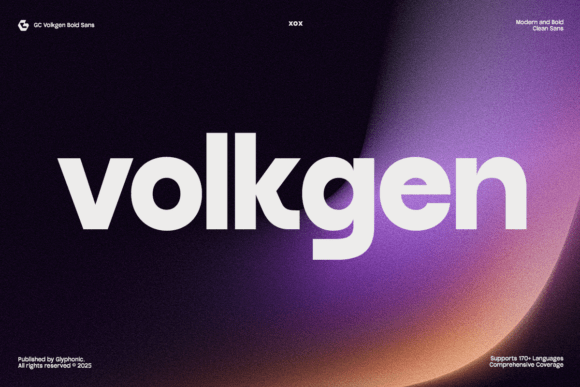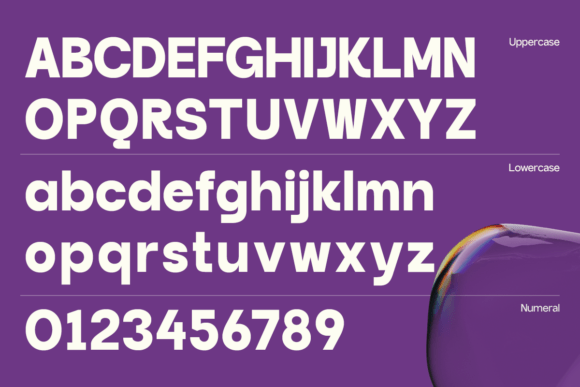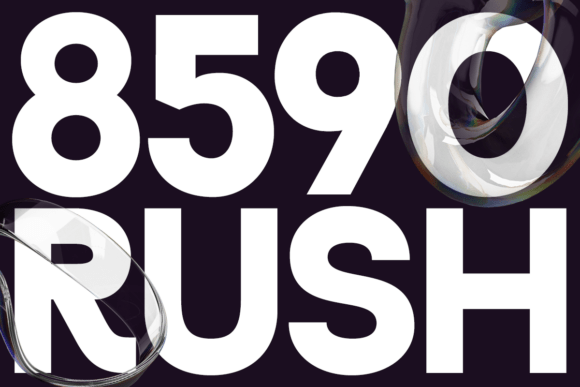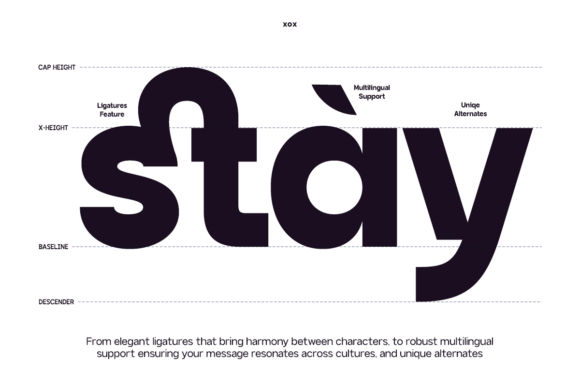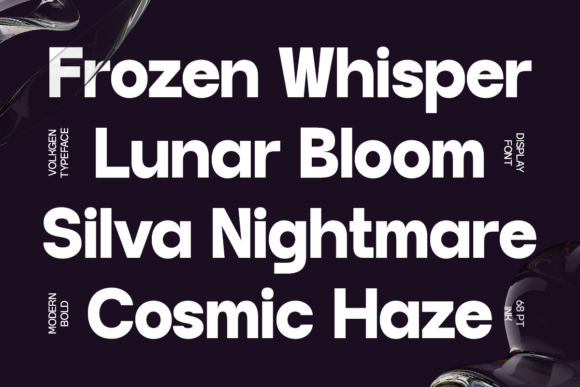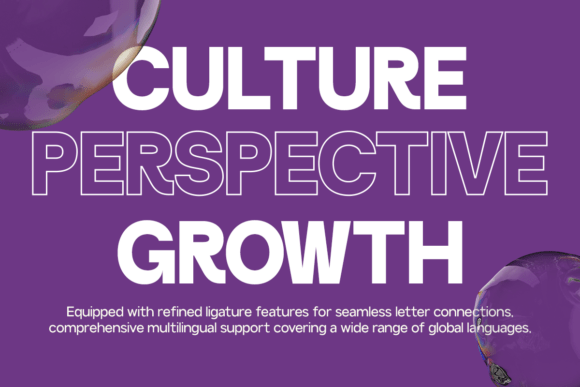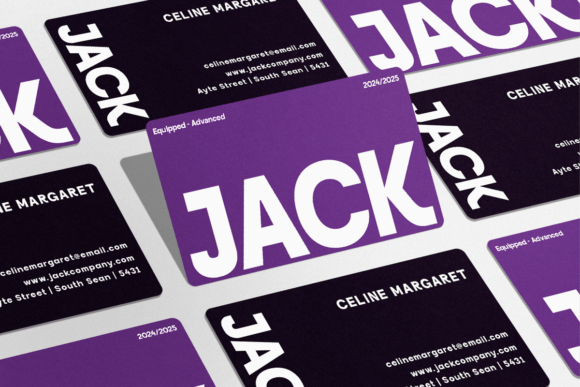
The Power of Typography: Elevating Your Designs with GC Volkgen Font
Imagine you’re working on a high-profile branding project, and you need a font that exudes confidence and modernity. The cursor hovers over your keyboard as you search for the perfect match, and suddenly, it appears: GC Volkgen Font. This sleek sans serif typeface is the ultimate game-changer for designers seeking to create striking visual identities.
GC Volkgen Font is built on clean geometric foundations and reinforced by strong strokes, making it perfect for branding, editorial design, and technology-driven projects. Its balanced proportions and refined details ensure it adapts effortlessly to any design context, while its distinctive voice sets it apart from the crowd.
As a designer, you’ll appreciate the value of GC Volkgen Font’s PUA-encoded features, which allow for effortless access to all glyphs, swashes, and alternate characters. With this font, you’ll be empowered to create designs that are both strong and sophisticated, making it a timeless addition to your design arsenal.
Gc Volkgen Font Key Features
- Font Family: Gc Volkgen is a sans-serif font family.
- Font Size: Supports font sizes ranging from 6pt to 120pt, making it suitable for various applications.
- Resolution: Designed to work at resolutions up to 300 DPI, ensuring clear readability at high print resolutions.
- Unique Characteristics: Gc Volkgen features a geometric and modern design, with clean lines and a highly legible character set.
Gc Volkgen Font Review
I recently had the chance to work with the Gc Volkgen font, and I’m excited to share my honest review with you. Here’s what I thought:
- Unique aesthetic: Gc Volkgen has a distinctive, modern look that sets it apart from more traditional fonts.
- High legibility: The font is well-designed for digital use, with clear letterforms that are easy to read at various sizes.
- Comprehensive character set: The font includes a wide range of characters, including punctuation, symbols, and language support.
- Not ideal for print: While Gc Volkgen is great for digital use, it may not be the best choice for print materials, where the font’s digital-specific design may not hold up as well.
- Some users may find it too bold: The font’s strong, modern aesthetic may not appeal to everyone, and some users may find it too bold or overpowering.
Gc Volkgen is a solid choice for digital design projects where a modern, bold aesthetic is desired. While it may have some limitations, the font’s unique look and high legibility make it a great option for a wide range of applications. Just be sure to consider the context in which it will be used, and whether it will appeal to your target audience.
Tips for Getting the Most Out of Gc Volkgen Font
Some tips for getting the most out of the Gc Volkgen Font include:
1. Experiment with different font sizes and colors to create visual hierarchy and emphasis.
2. Pair the Gc Volkgen Font with other fonts to create a unique and interesting typography combination.
3. Use the Gc Volkgen Font in conjunction with images and graphics to create a visually appealing design.
Common Use Cases for Gc Volkgen Font
The Gc Volkgen Font is commonly used in:
1. Graphic design projects, such as logos, brochures, and business cards.
2. Digital design projects, such as websites and mobile apps.
3. Print design projects, such
Alternatives to Gc Volkgen Font
Playfair Display is an elegant, high-end serif font ideal for luxury brands, high-end fashion, and fine art. Its ornate details and classical feel make it perfect for titles, headings, and special occasions. It’s a great choice when you need to convey sophistication and refinement.
Compared to Gc Volkgen Font, Playfair Display has a more classical and luxurious feel, whereas Gc Volkgen Font is more modern and geometric. Playfair Display is better suited for projects that require a touch of elegance and sophistication.